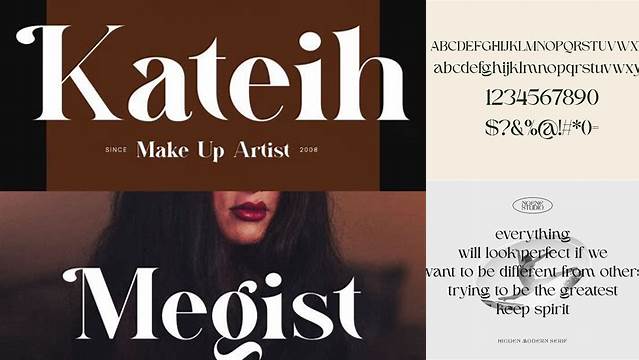
Free Higuen Elegant Font: A Designer's Guide
Hey guys! Are you on the hunt for a font that screams elegance and sophistication without breaking the bank? Look no further! Today, we’re diving deep into the world of the Higuen Elegant font, exploring what makes it so special, where you can snag it for free, and how to use it to elevate your design projects. So, buckle up and get ready to unleash your inner typography enthusiast!
What Makes Higuen Elegant Font So… Elegant?
When we talk about Higuen Elegant, we're not just throwing around fancy words. This font truly embodies a sense of grace and sophistication. But what exactly contributes to this feeling? Let’s break it down:
First off, Higuen Elegant often features delicate and refined letterforms. Think of it as the Audrey Hepburn of fonts – timeless, classic, and effortlessly chic. The strokes are usually thin and consistent, creating a sense of airiness and lightness. This is in contrast to bolder, heavier fonts that can feel more assertive and attention-grabbing.
Next, the curves and serifs (those little decorative strokes at the end of the letterforms) play a crucial role. Higuen Elegant fonts typically have beautifully crafted curves that flow smoothly and gracefully. The serifs, if present, are often delicate and understated, adding a touch of formality without being overwhelming. Some variations might even feature unique and stylized serifs that set them apart from the crowd.
Spacing is also key. A well-designed Higuen Elegant font will have just the right amount of space between letters and words, ensuring readability and preventing the text from feeling cramped or cluttered. This careful attention to spacing contributes to the overall sense of harmony and balance.
Furthermore, the contrast between thick and thin strokes is another defining characteristic. In many Higuen Elegant fonts, you'll notice a subtle variation in stroke weight, adding visual interest and preventing the font from looking too monotonous. This subtle contrast creates a sense of depth and dimension, making the text more engaging to the eye.
Finally, the overall aesthetic of Higuen Elegant leans towards a classic and timeless feel. It's a font that wouldn't look out of place in a high-end fashion magazine, a wedding invitation, or a luxury brand's logo. It exudes sophistication and refinement, making it a perfect choice for projects that require a touch of elegance.
In short, the elegance of Higuen Elegant comes from a combination of delicate letterforms, graceful curves, refined serifs, careful spacing, subtle contrast, and a timeless aesthetic. It’s a font that speaks volumes without shouting, making it a versatile choice for a wide range of design applications. So, whether you're designing a logo, a website, or a printed piece, consider Higuen Elegant as your go-to font for adding a touch of class and sophistication.